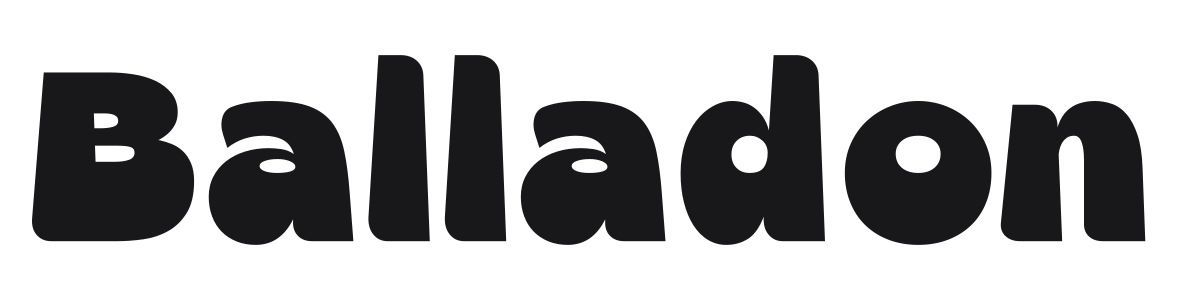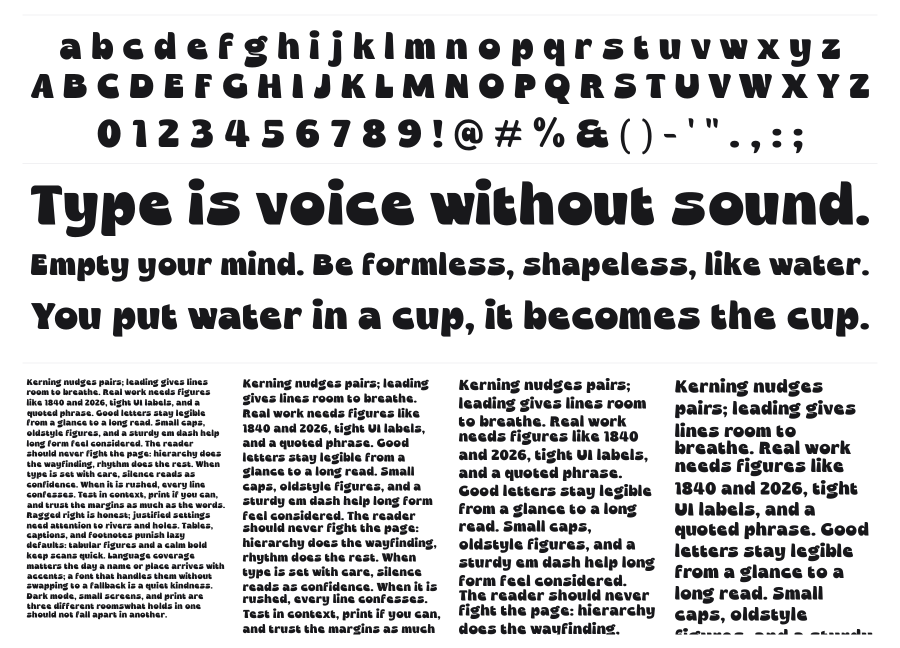
Balladon
by Faqih Fawaji
Balladon is a heavy rounded sans with thick, inflated strokes and a distinctly 1970s groovy personality. Every curve is pushed to the limit, with soft terminals and swollen counters that give the type a bubbly, tactile presence. It brings immediate energy to posters, packaging, and any headline that needs to feel fun.